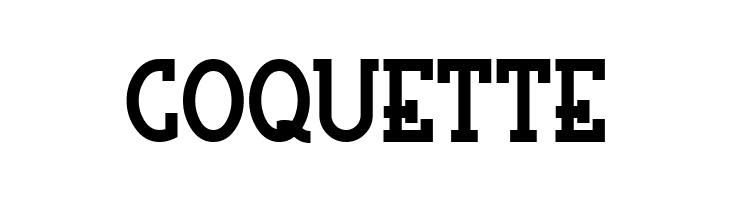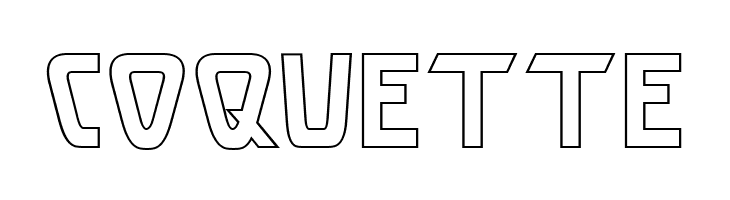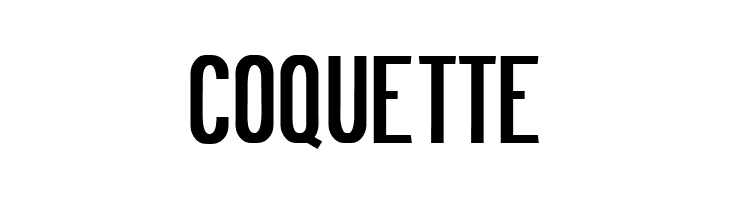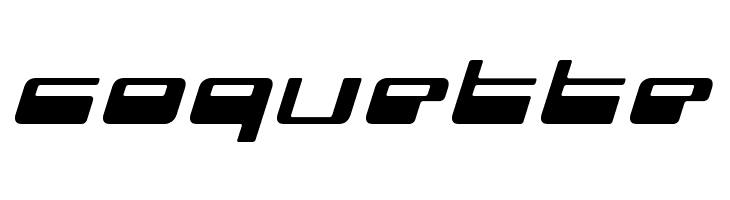
A bold slab serif font with strong, block-like serifs and a robust appearance.
( Paul Lloyd Fonts )
A bold, geometric outline font with sharp angles and clean lines.
( Fonts by uatype.faithweb.com - UnAuthorized Type )
A bold, modern font with tall, narrow characters and consistent stroke width.
( Fonts by www.fenotype.com )
A futuristic, geometric font with a sleek, slanted design.